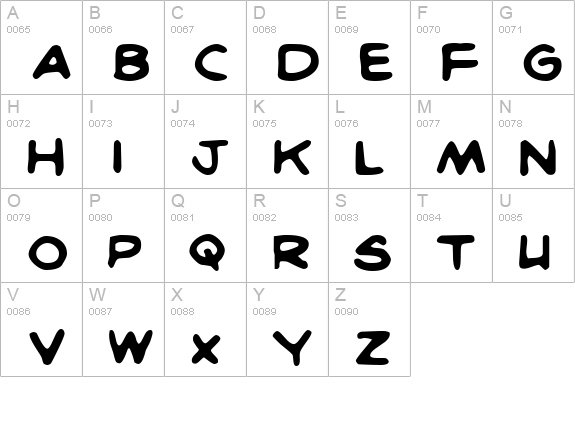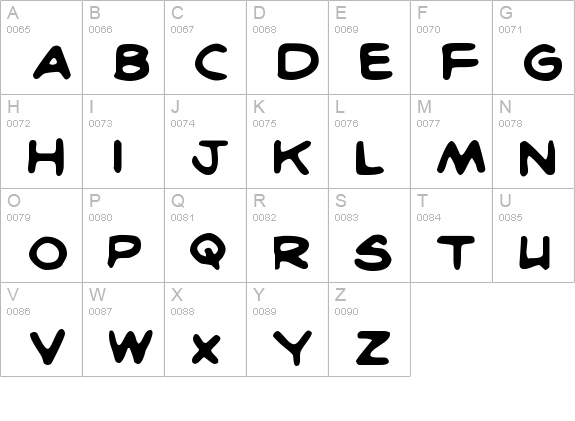
BritComics Normal Font Details
BritComics Normal is the standard, neutral variant in the BritComics typeface family \xE2\x80\x94 well suited to general body text, paragraphs, and standard typographic work.
BritComics Normal font is a quirky and charming typeface that brings a touch of British humor to your designs. With its clean lines and rounded edges, this font is perfect for adding a fun and playful element to any project. Whether you're working on a comic strip, poster, or logo, BritComics Normal will add a touch of whimsy to your work. Best of all, BritComics Normal is available for free download at FontsMarket.com. So go ahead and add this delightful font to your collection today and let your creativity shine!